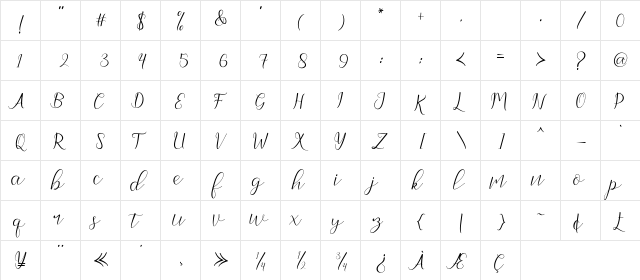
tegofia Regular
| Designer | fajriadi_bandithandmade |
Design Context for tegofia Typeface
tegofia takes a measured approach to typography — its balanced proportions and neutral character make it a reliable workhorse for both digital and print work.